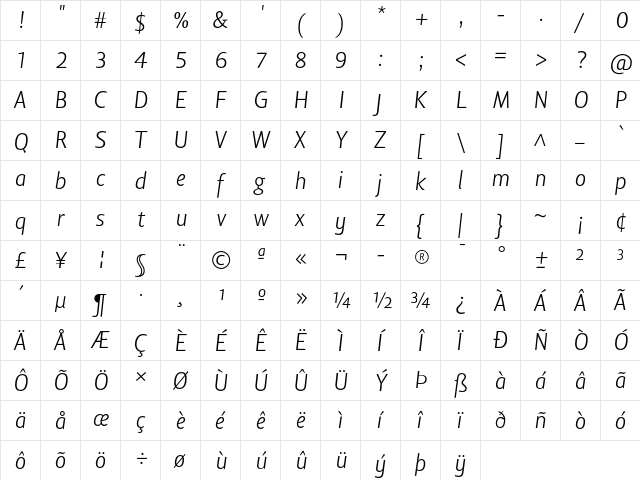
Lisboa Sans LF Light Italic
Design Context for Lisboa Sans LF Light Typeface
Lisboa Sans LF Light is a composed and adaptable typeface that performs quietly and consistently across a wide range of design contexts. Its italic angle brings a sense of urgency and motion to the letterforms. The delicate stroke weight brings airiness and refinement to layouts.
Pro Tip: Use Lisboa Sans LF Light for emphasis, pull quotes, and subheadings where its slanted energy can add rhythm to the layout.